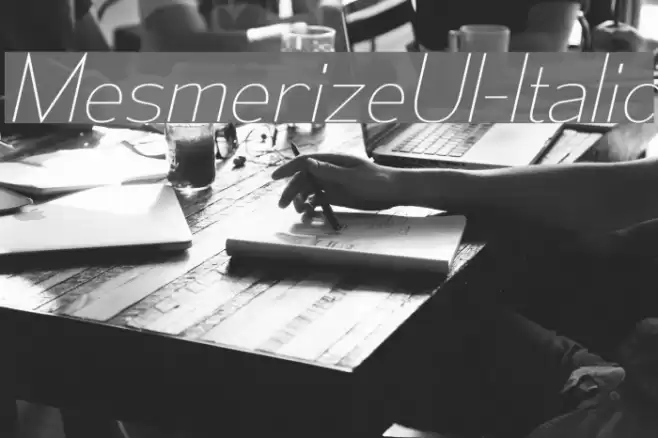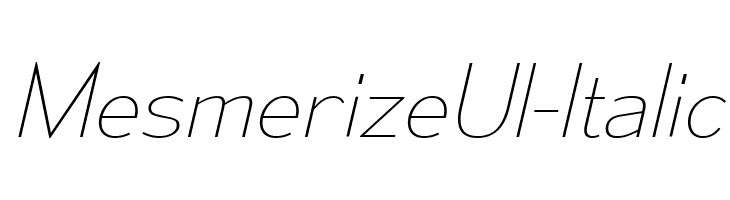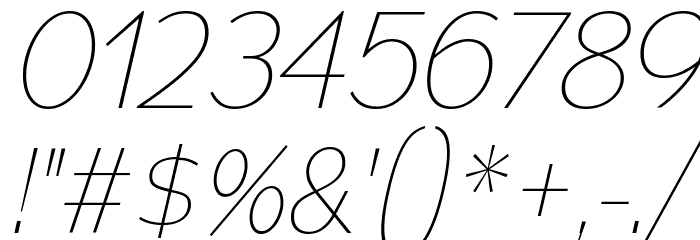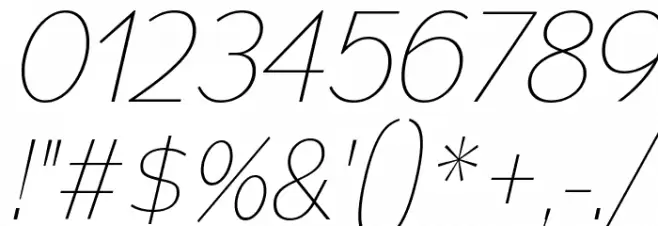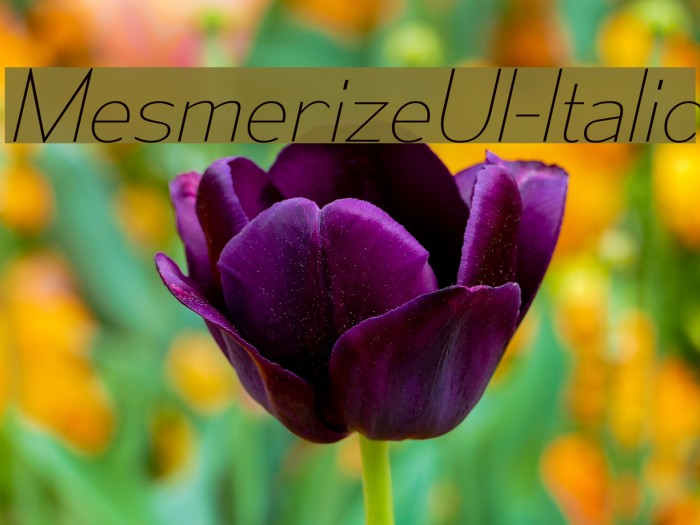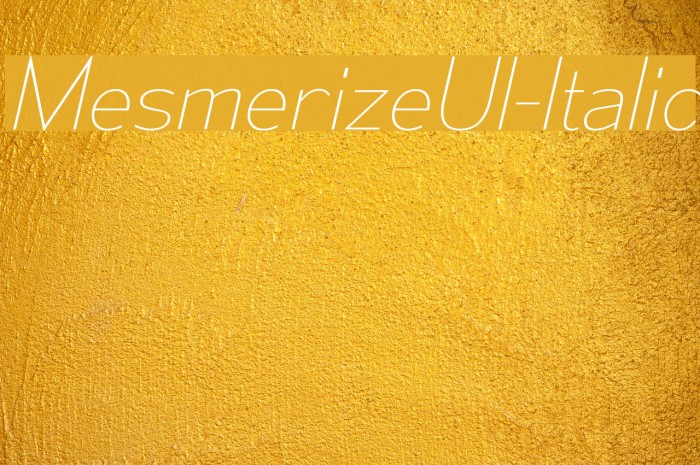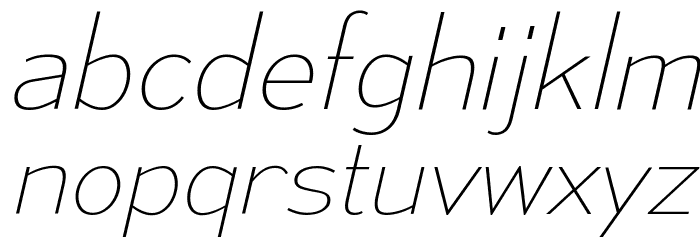
MesmerizeUl-Italic Font
MesmerizeUl-Italic Description
This font features a sleek and modern design with a clean, italicized style. The characters are elegantly elongated, giving a sense of movement and fluidity. The strokes are thin and consistent, contributing to a minimalist aesthetic. The uppercase and lowercase letters maintain a uniform height, enhancing readability. The numerals are clear and straightforward, while the special characters are well-integrated, maintaining the overall sleek appearance. This font is ideal for projects that require a contemporary and sophisticated look.
A sleek, modern italic font with thin, elongated strokes from Uncategorized fonts.
- Proposed Projects: Ideal for fashion magazines, modern branding, and elegant invitations.